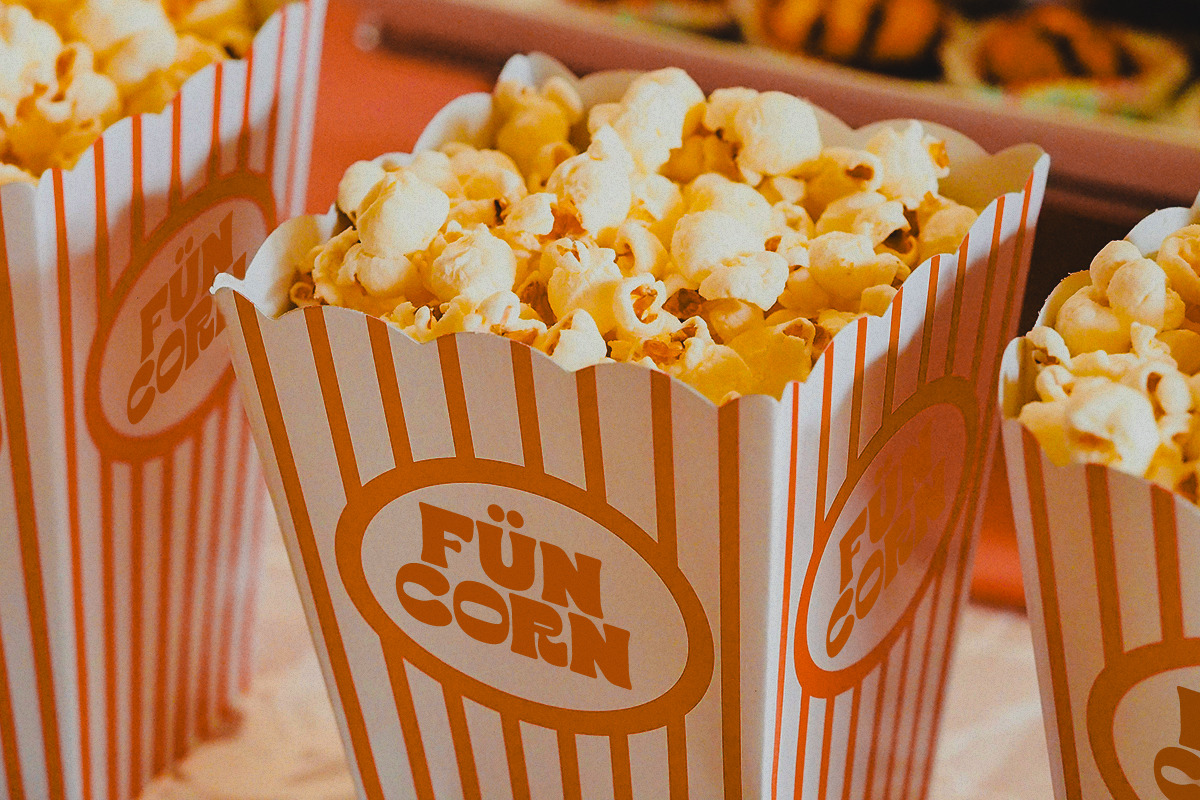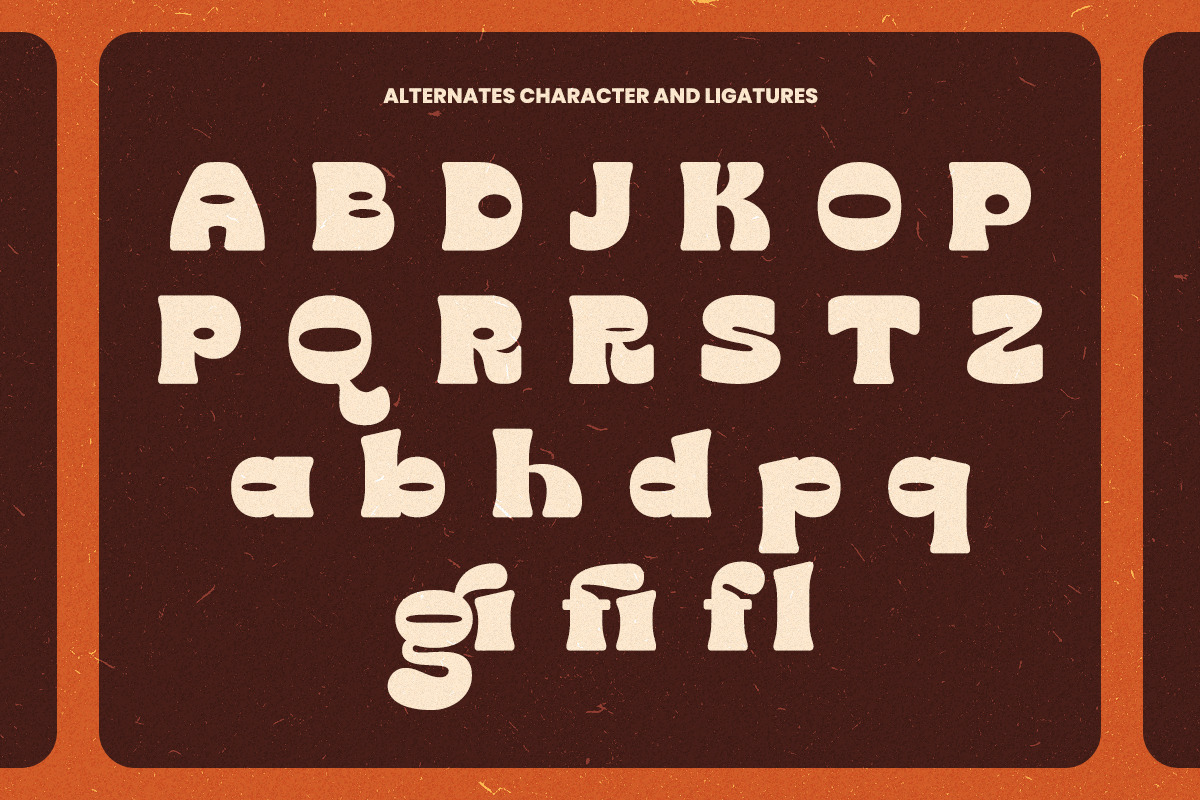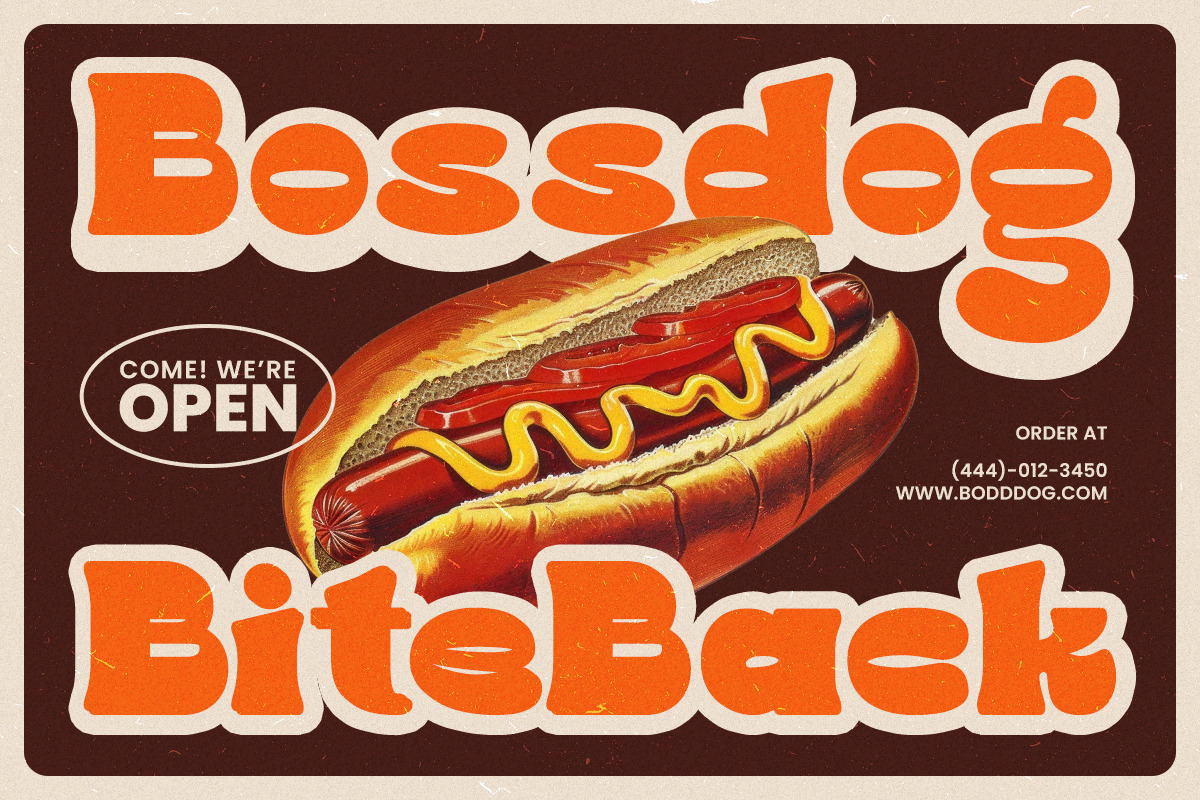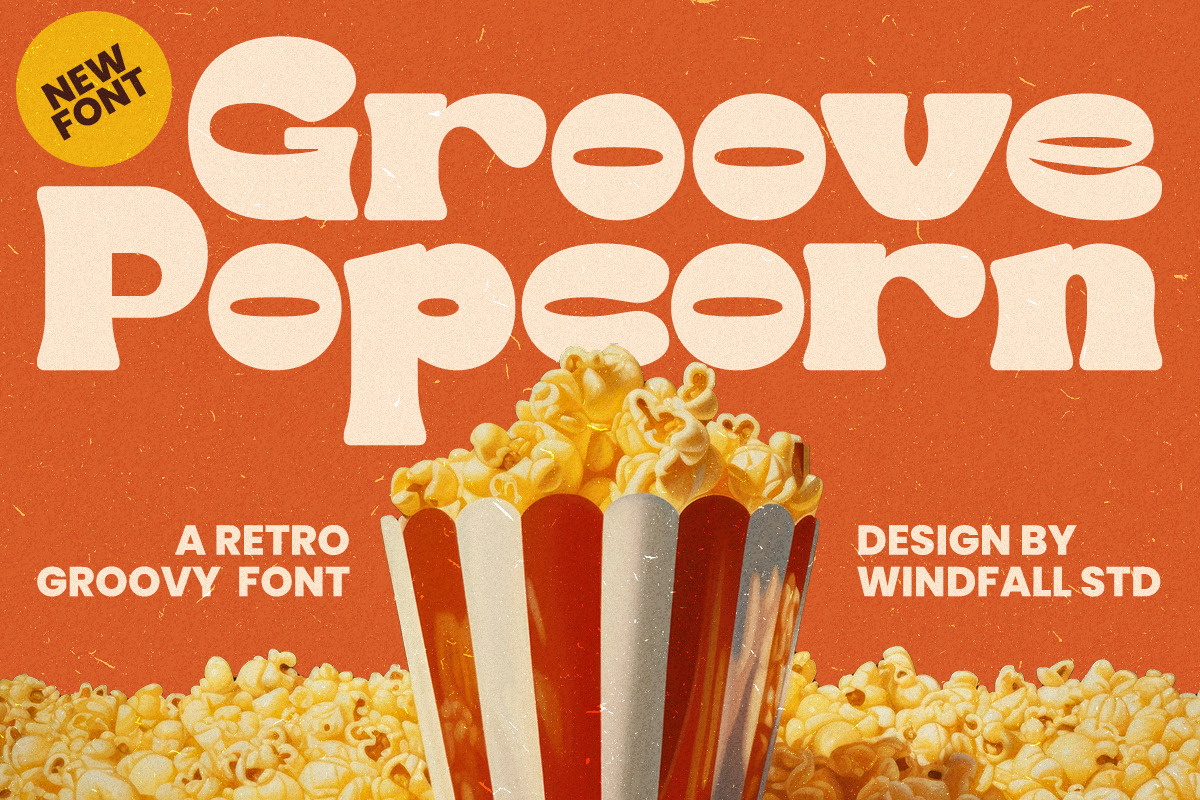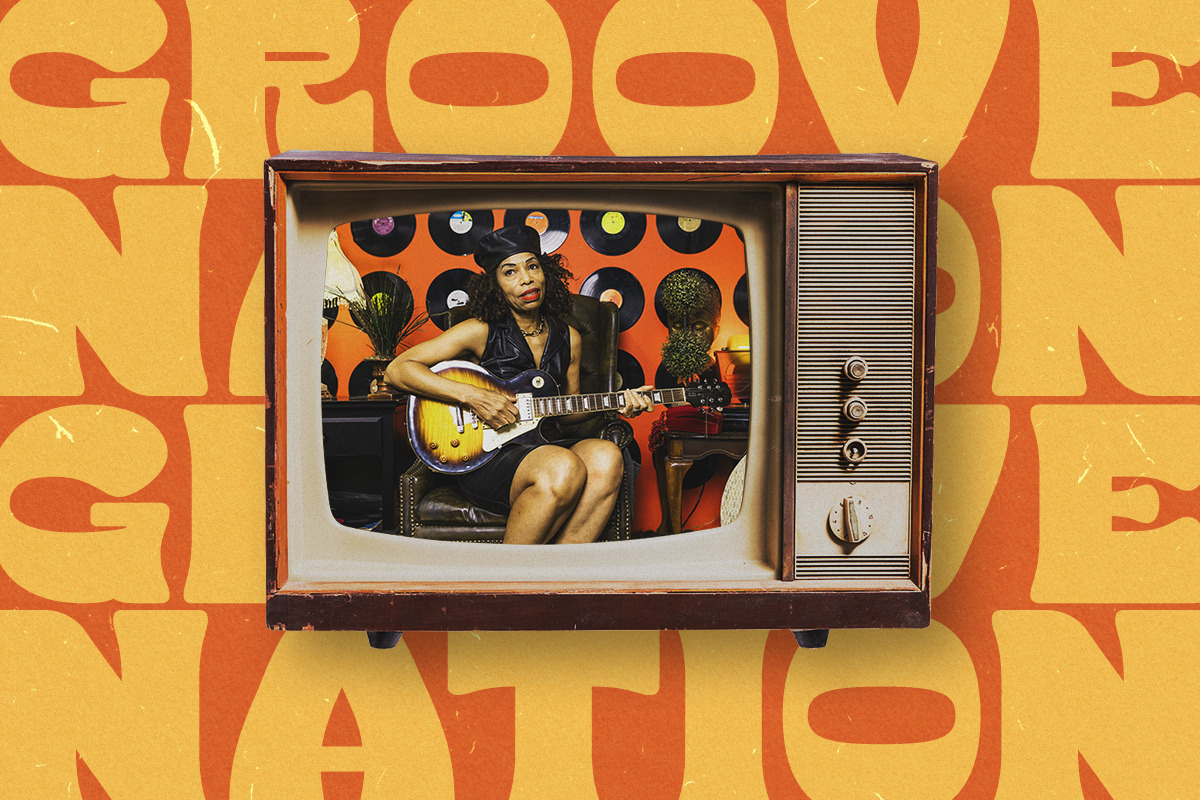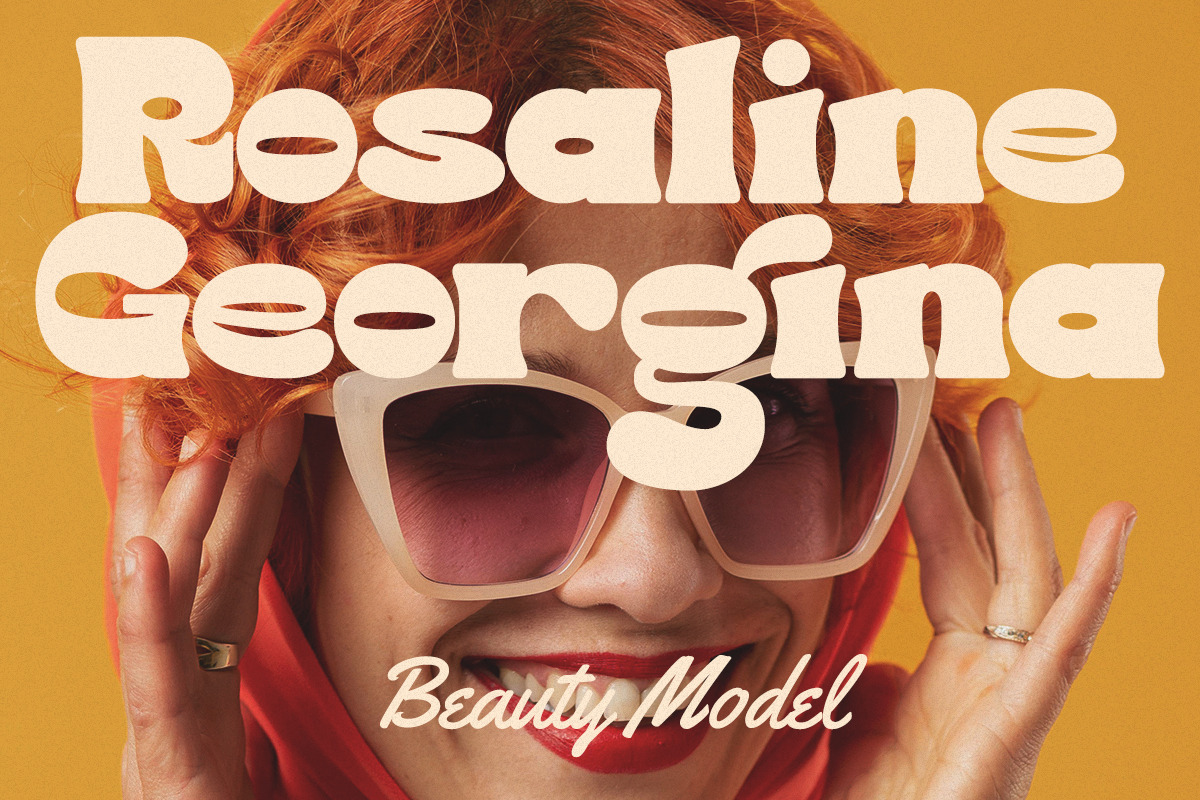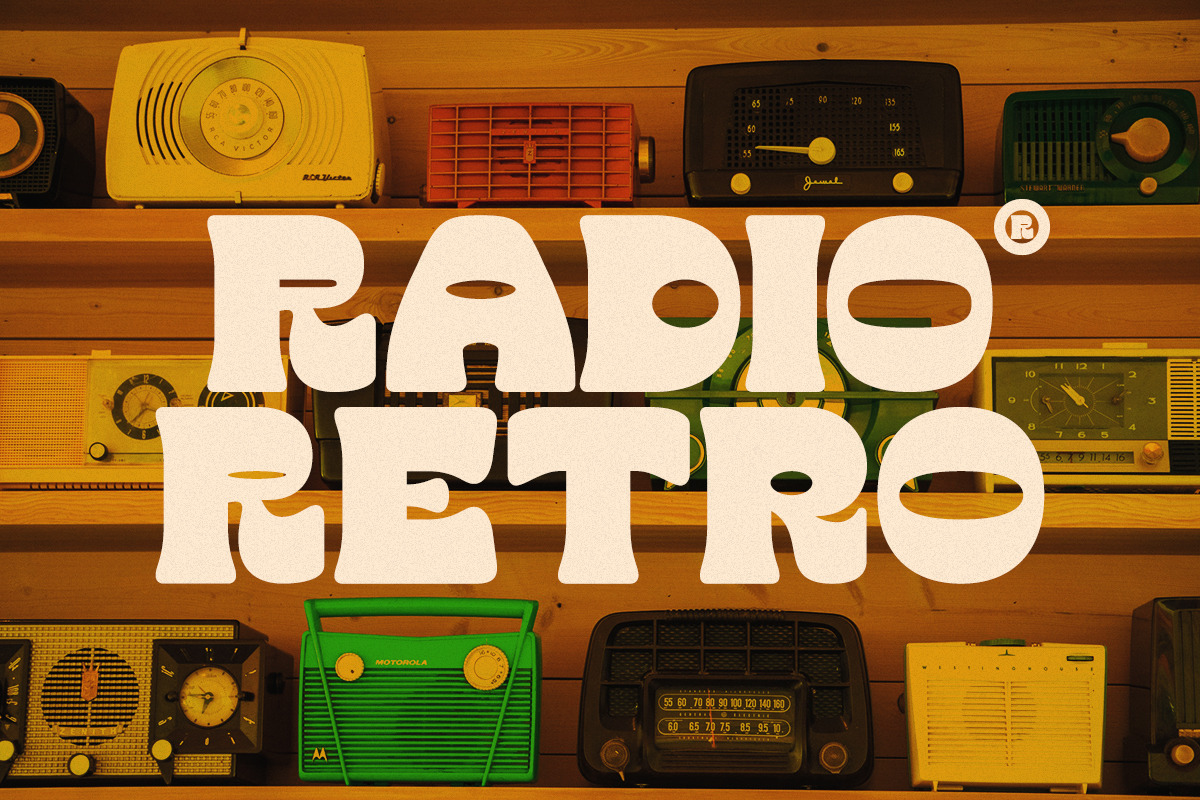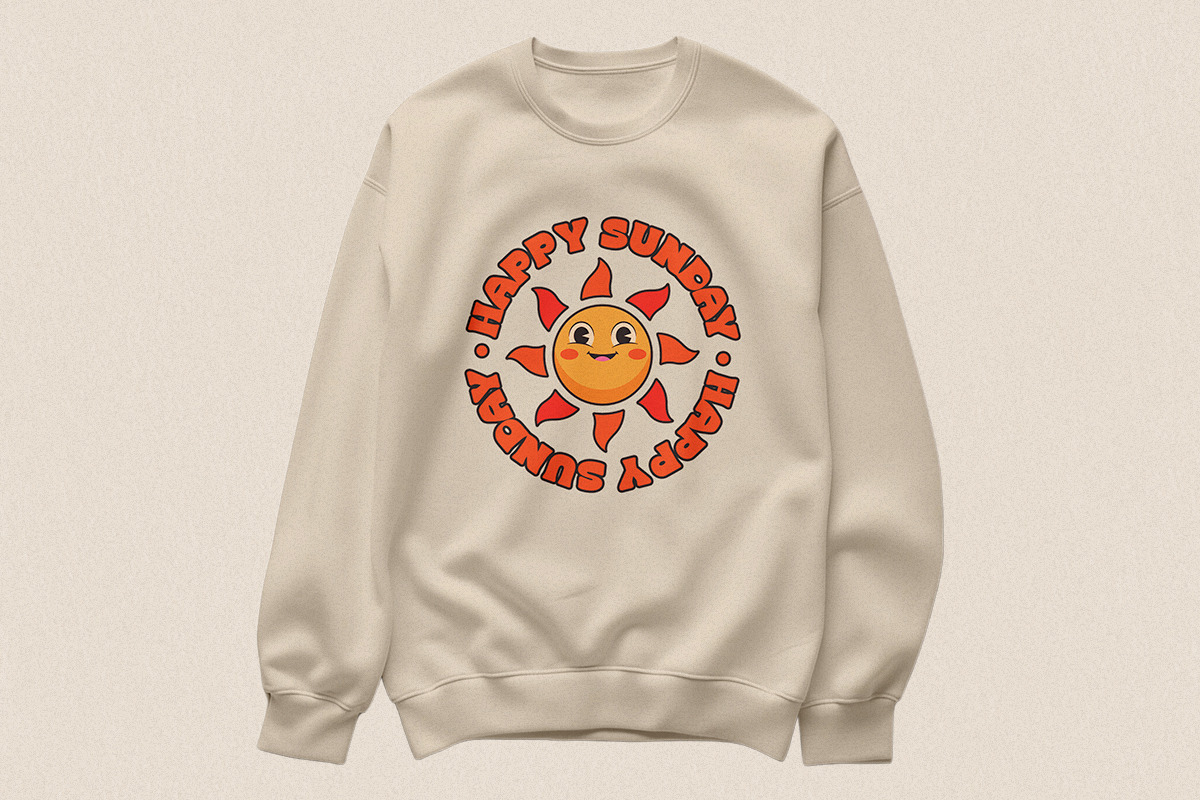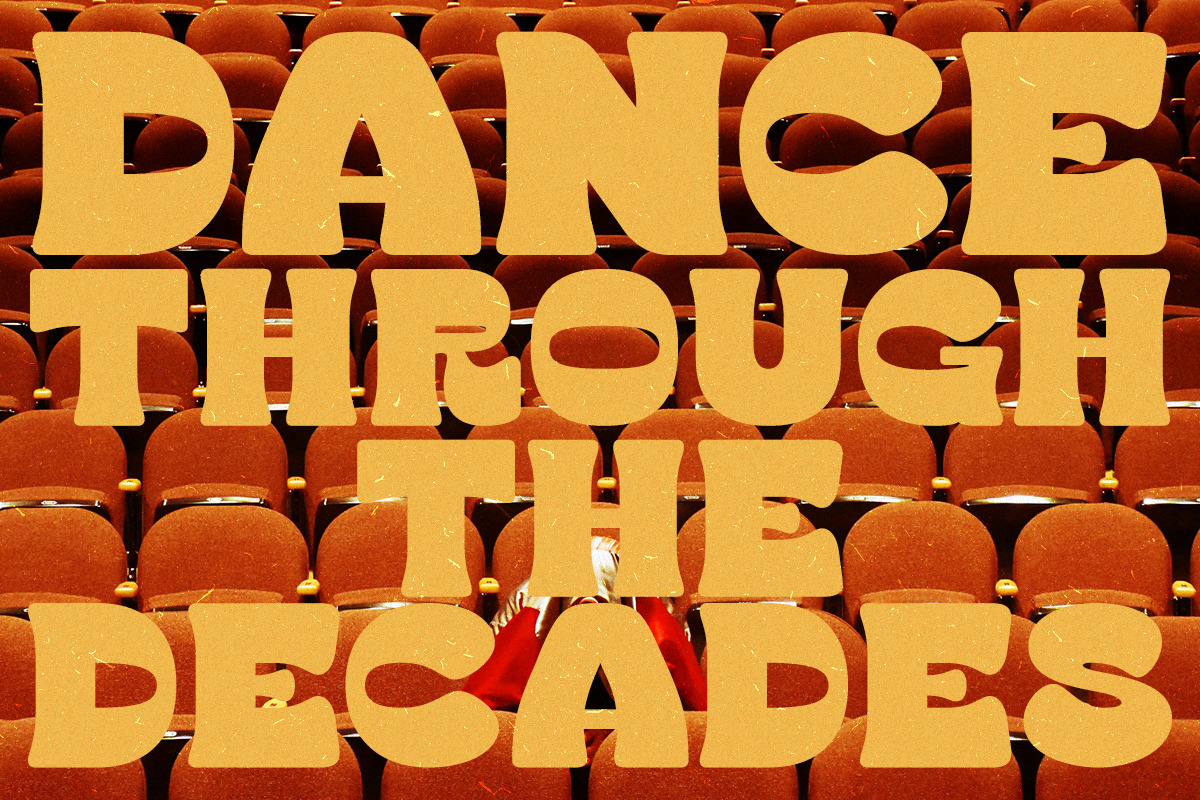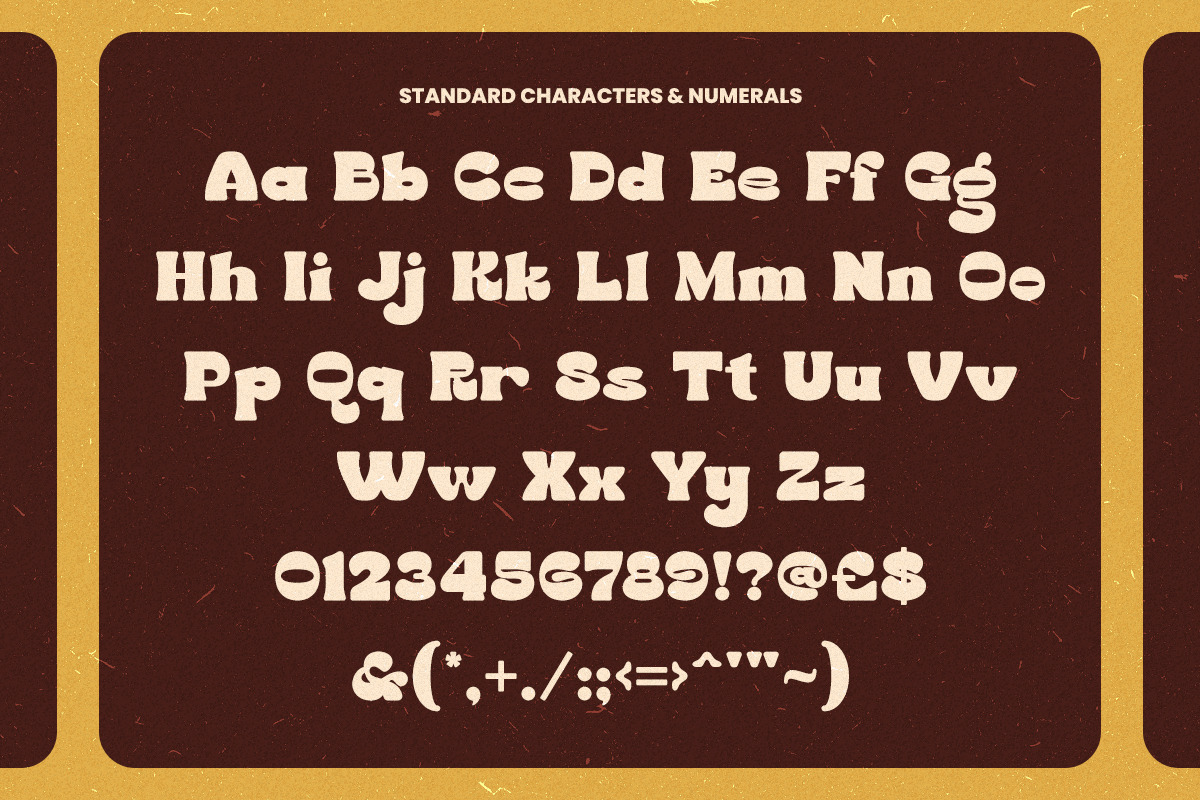
Groove Popcorn - Stylish Groovy Font
Groove Popcorn is a stylish retro font designed to bring a classic groovy vibe to your projects. With its bold curves and dynamic character, this font is perfect for posters, branding, vintage-inspired designs, music themes, and other creative works. Experience the charm of retro aesthetics blended with a modern twist, making Groove Popcorn a versatile choice for any design need.